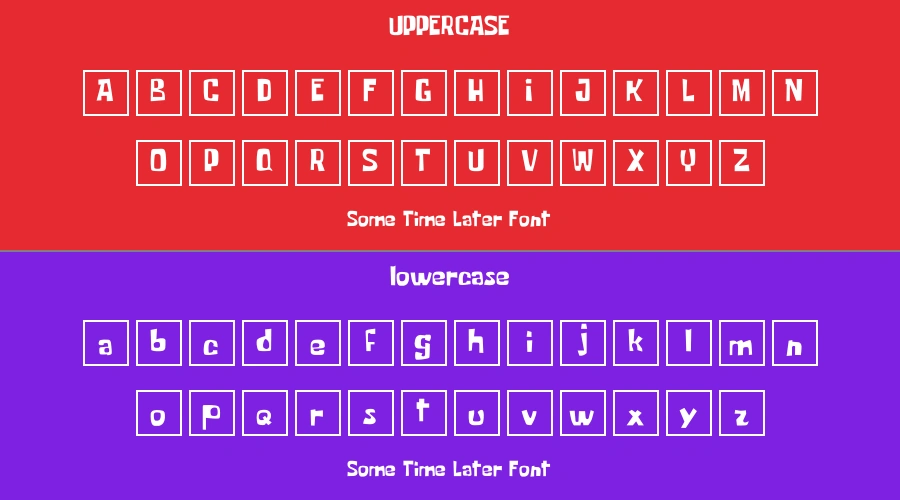
About Some Time Later Font
Some Time Later Font embodies typographic excellence through its masterful combination of flowing forms and flexibility. Created for presentation decks, this typeface delivers exceptional consistency and system compatibility across all applications. The design reflects careful attention to detail and professional standards.
Advanced capabilities include distinctive rectangular counters and versatile careful spacing, giving designers creative control. When used in running text, Some Time Later Font exhibits remarkable impact retention. The harmonious balance between stem weight and market position sets this typeface apart.